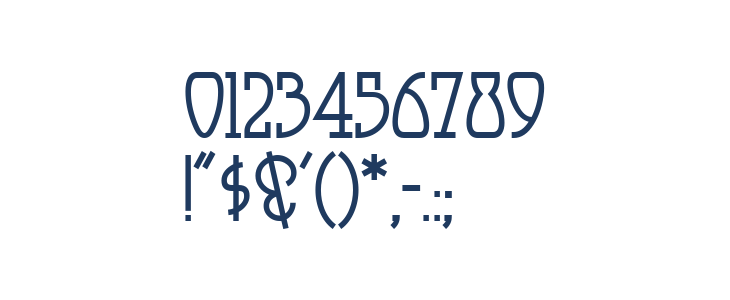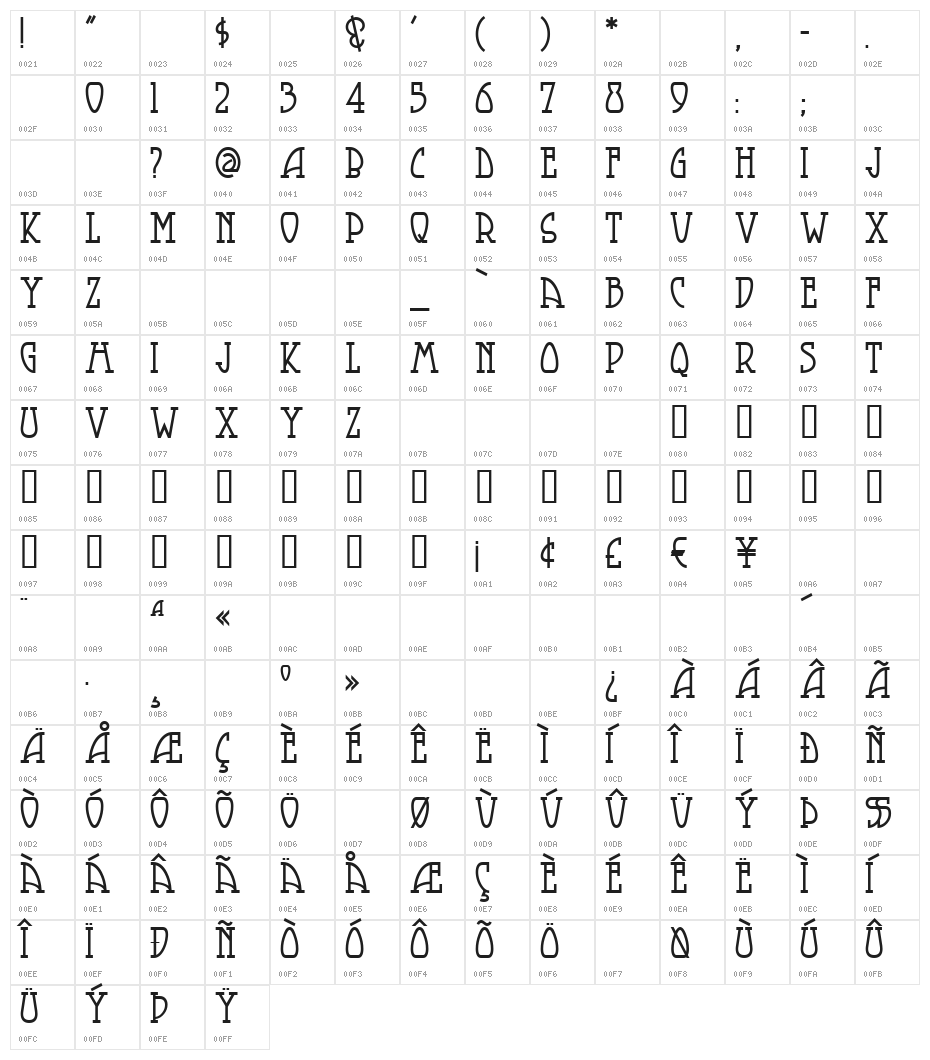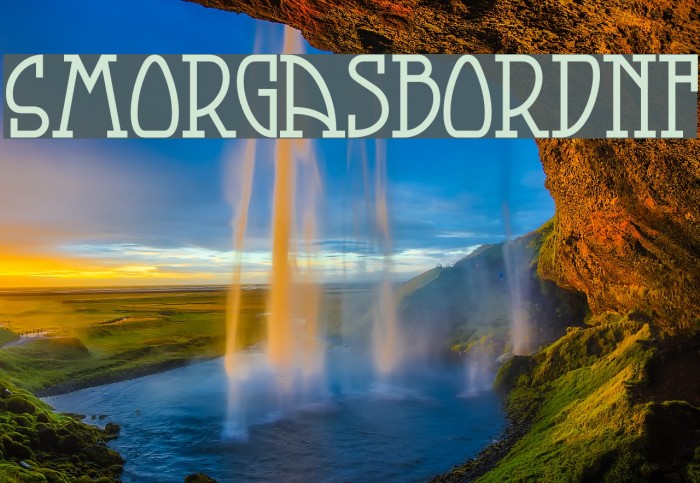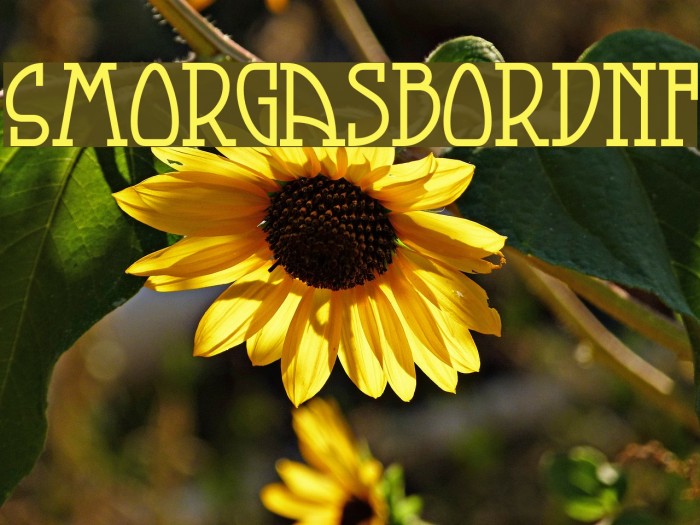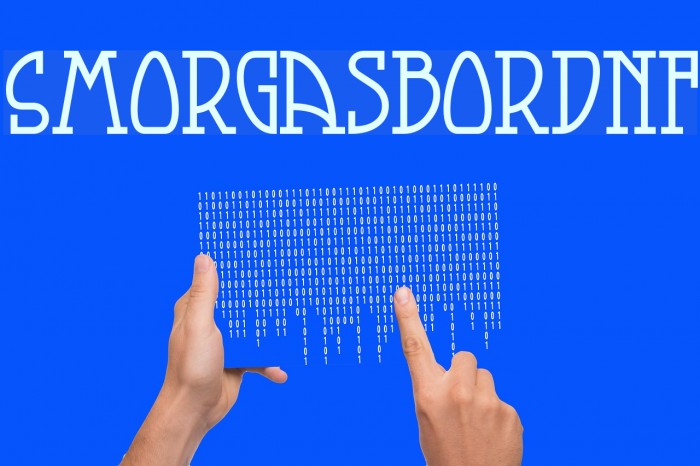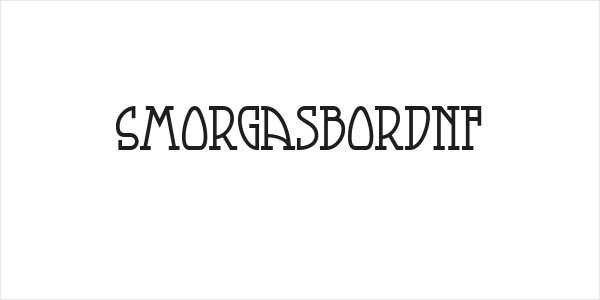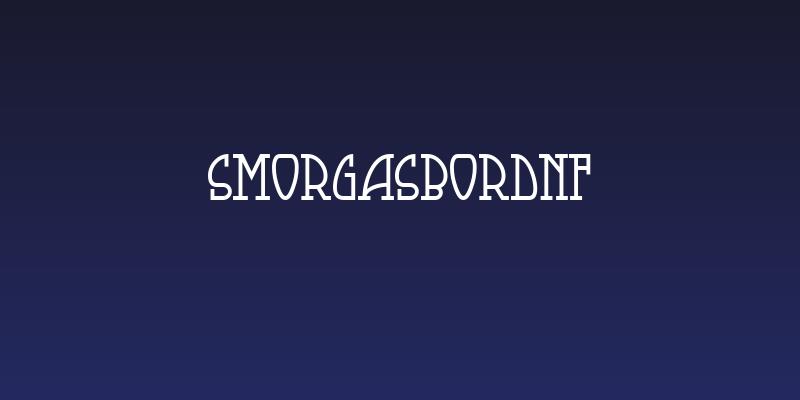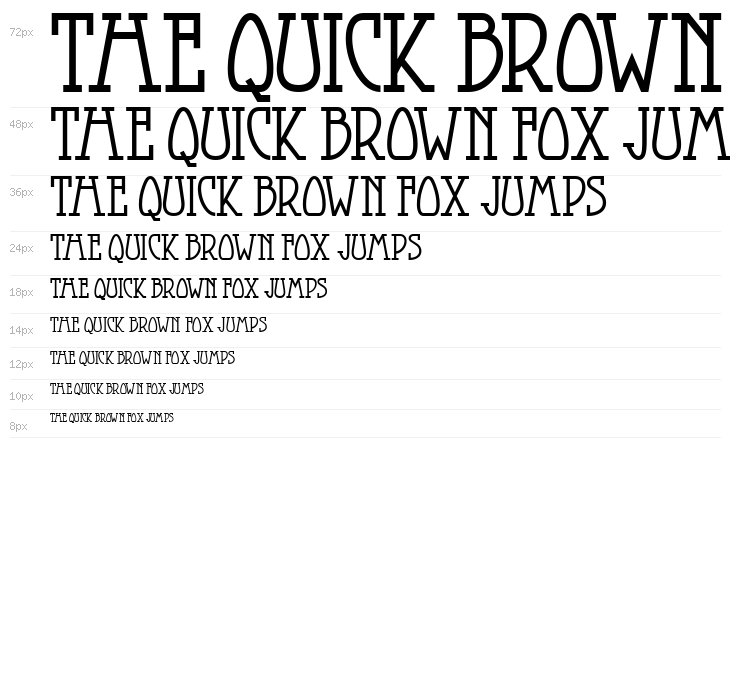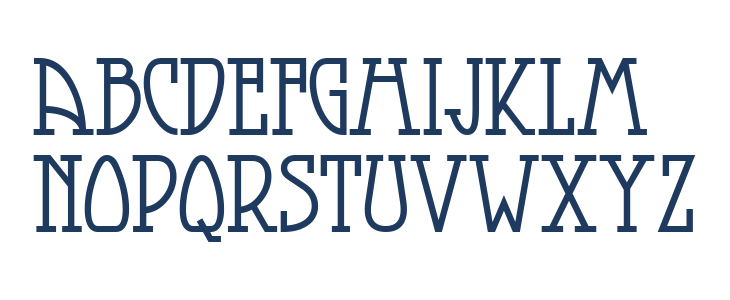
SmorgasbordNF Font
SmorgasbordNF Description
This font features a unique blend of geometric and decorative elements, characterized by its bold and dynamic letterforms. The uppercase letters exhibit a strong presence with their wide, arched strokes and distinct serifs, creating a sense of movement and flair. The lowercase letters maintain this style, offering a cohesive and visually engaging appearance. Numbers are crafted with the same attention to detail, ensuring readability while maintaining the font's artistic integrity. Special characters are thoughtfully designed to complement the overall aesthetic, making this font versatile for various creative applications.
| Proposed Projects | Ideal for branding, poster design, and creative headlines where a strong visual impact is desired. |